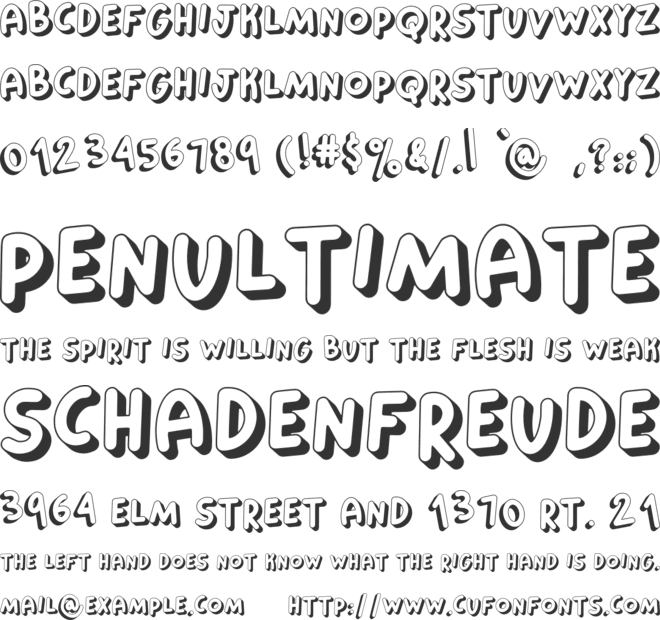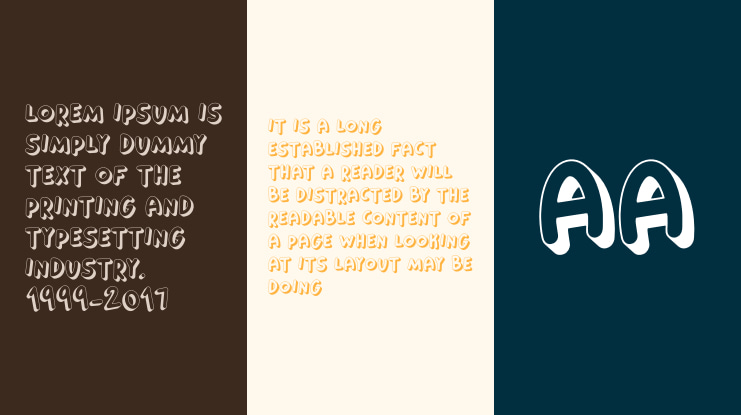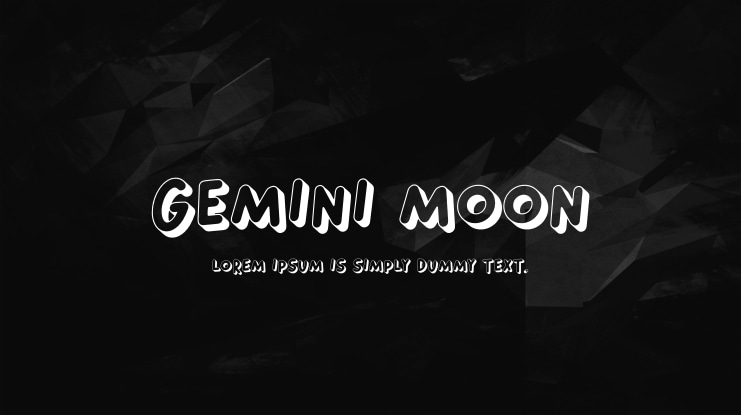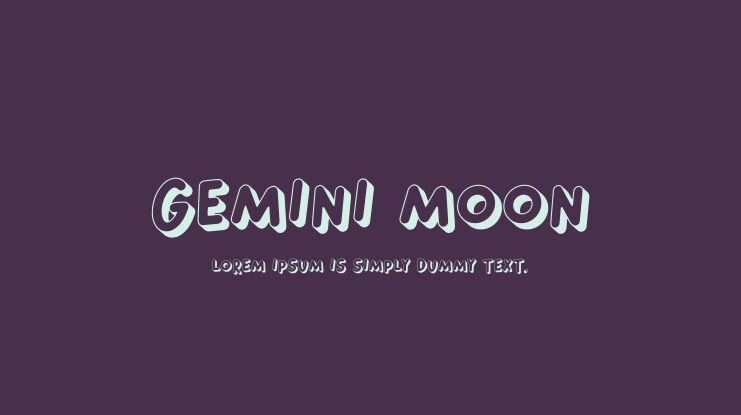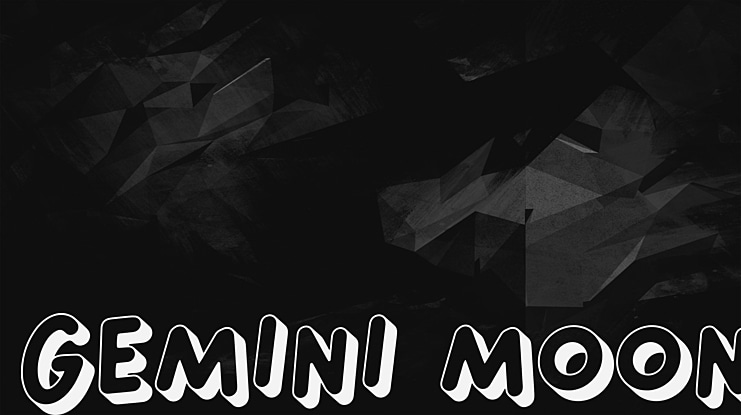
Gemini Moon Font
Gemini Moon is a super fun, quirky and childish themed display font. It is perfect for child related projects, cute quotes and so much more.